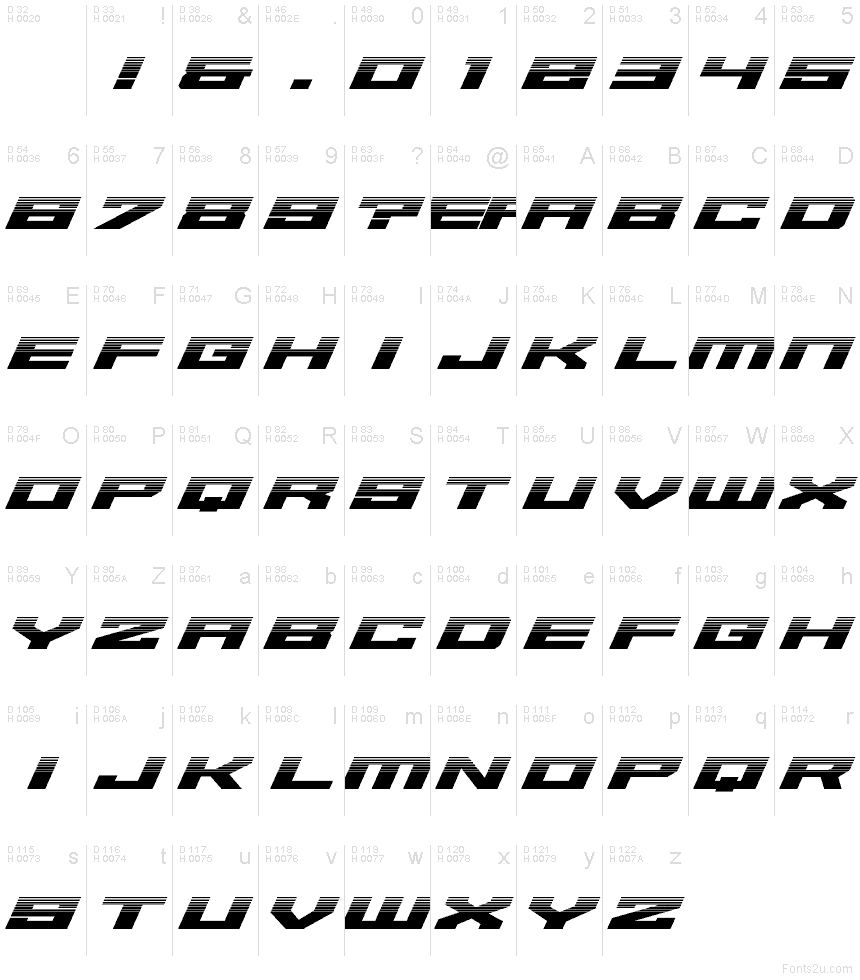
Gear6-Gradient
Gear6 Gradient font by Youssef Habchi is a free racing techno display font built around motion itself. Bold, low-slung letterforms carry stacked gradient stripes that read like airflow—clean, slashed, and primed for speed. Set in the Gear6 family, those horizontal bands create instant acceleration on the page, giving headlines a kinetic snap without extra effects.
Using Gear6 Gradient, you can punch up motorsport posters, esports logos, streaming overlays, car livery numbers, energy drink packaging, event passes, and YouTube thumbnails. The compact rhythm and crisp striping hold up at large sizes and across dark or neon palettes. Pair this free font’s charged titles with a plain, unfussy grotesk for body copy to keep the spotlight on the speed lines.